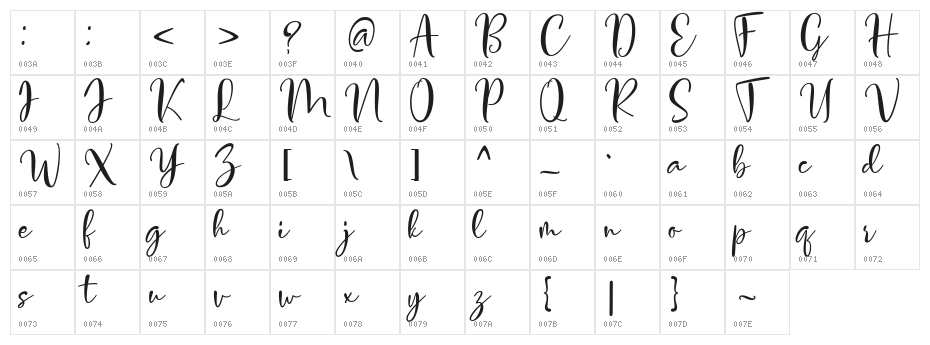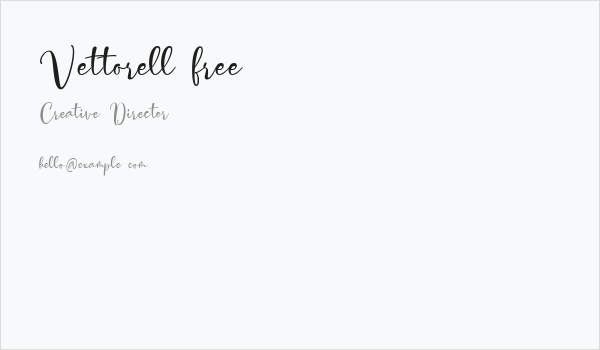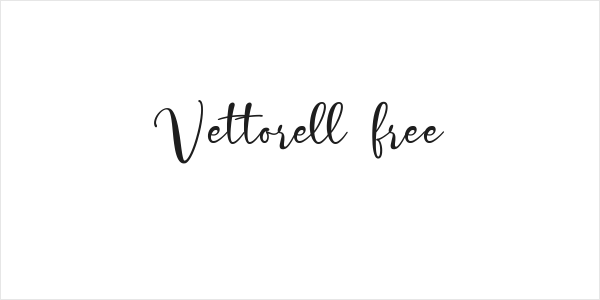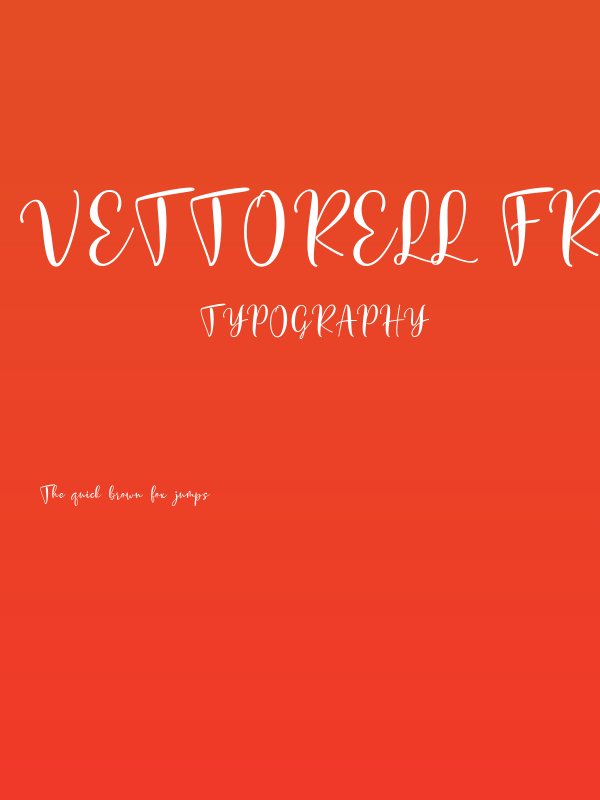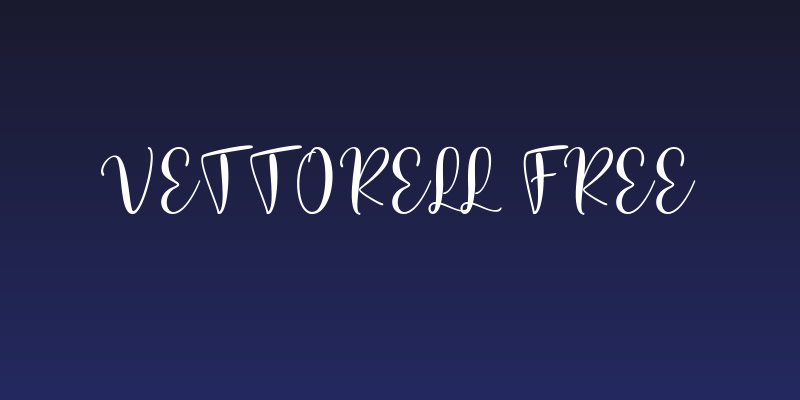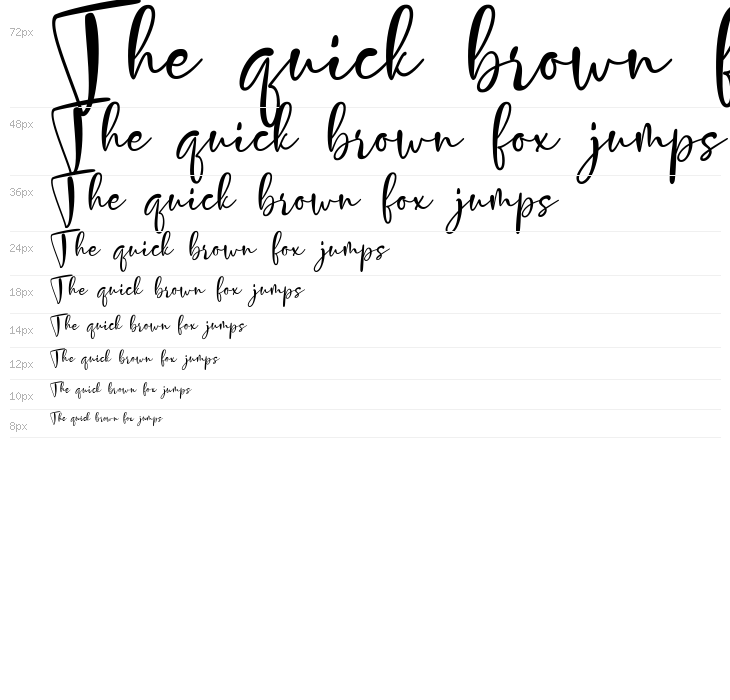
Vettorell free Font
Vettorell free Description
This font features a stylish and elegant script design, characterized by its fluid, cursive strokes that mimic the natural flow of handwriting. The uppercase letters exhibit a graceful, slightly elongated form, while the lowercase letters maintain a consistent, flowing connection between characters. The font's design is both sophisticated and approachable, making it suitable for a variety of creative projects. Its smooth curves and balanced proportions enhance readability, while the subtle variations in stroke thickness add a touch of dynamism and visual interest. This font is ideal for projects that require a personal, handcrafted feel, such as invitations, greeting cards, and branding materials.
| Overall Style | Elegant, Handwritten |
| Proposed Projects | Ideal for invitations, greeting cards, branding materials, and any project requiring a personal touch. |